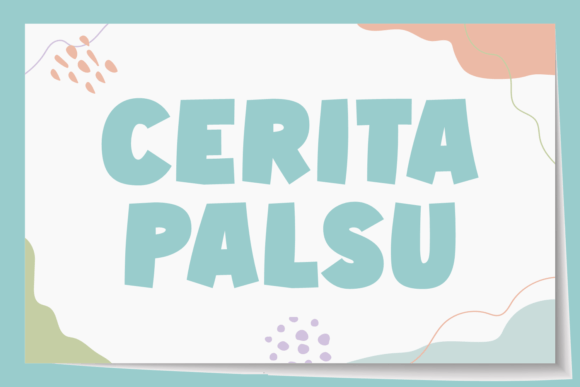
Introduce Cerita Palsu - a daring and chunky display font. Its bold strokes and thick lines emanate a playful, vivacious vibe that commands attention instantly. Cerita Palsu is a font that captures the essence of boldness and fun, ready to transform your designs into captivating expressions of creativity.
Unleash your imagination with Cerita Palsu and embark on a journey of creative expression like never before. This font is an ideal companion for those seeking to inject a touch of playfulness into their designs. With its cheerful demeanor, Cerita Palsu brings life to branding projects, packaging concepts, and any creative endeavor where a blend of fun and boldness is desired.
Visualize the impact Cerita Palsu will have on your sports apparel designs. Its bold personality and playful charm align seamlessly with the energy and dynamism of sports. Whether you're creating jerseys, t-shirts, or any sports-related design, Cerita Palsu will elevate your designs to the next level.
Embrace the power of Cerita Palsu and watch your designs come alive with a new sense of vibrancy and energy. Its unique character will make your products stand out, leaving a lasting impression on your target audience. Be a part of the creative revolution and join countless designers who have discovered the magic of Cerita Palsu.
Don't miss this opportunity to harness the playful spirit of Cerita Palsu. Let its bold strokes and cheerful presence captivate your audience and elevate your designs to new heights. Embrace the joy of creativity and see the difference Cerita Palsu makes. Make a statement with Cerita Palsu today!